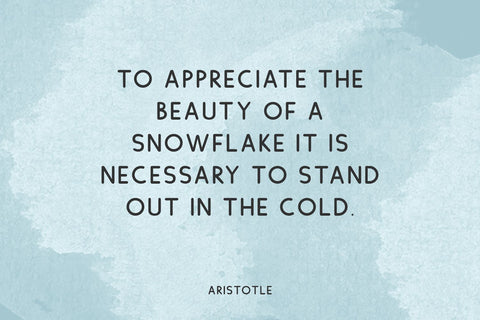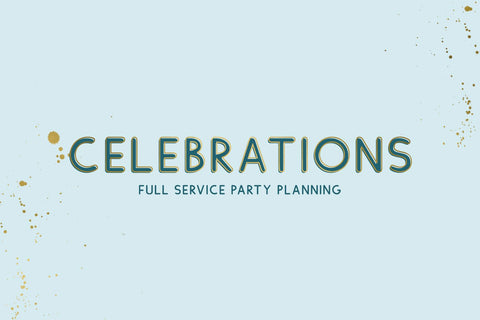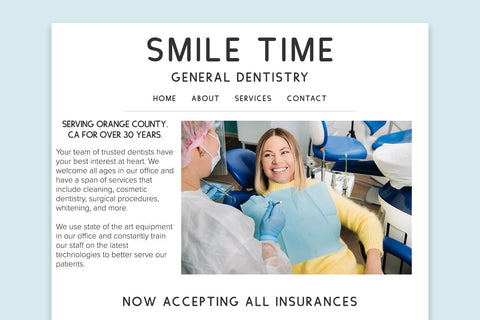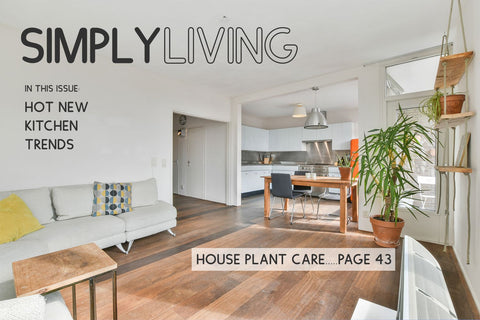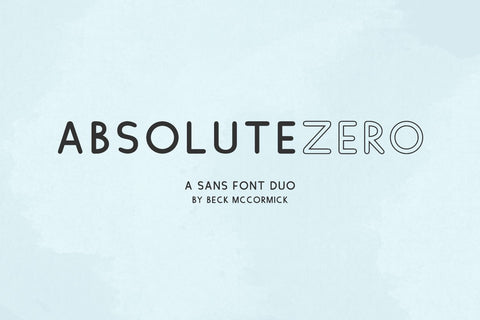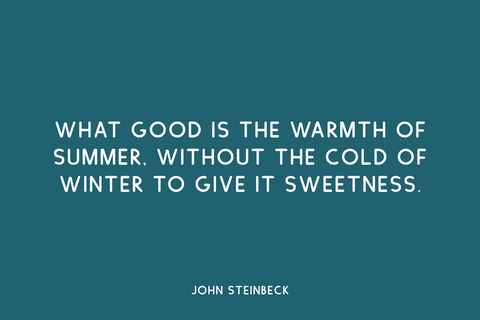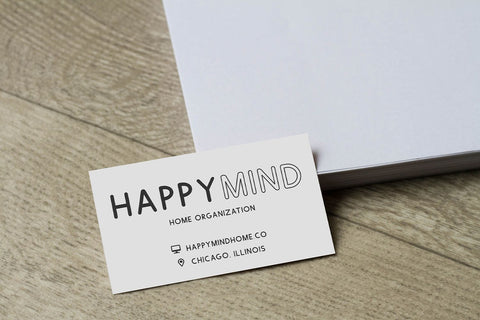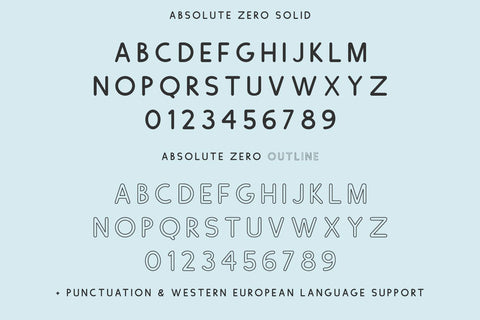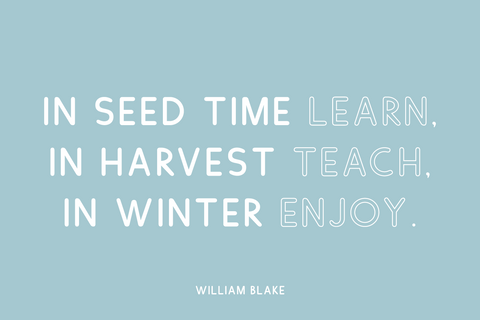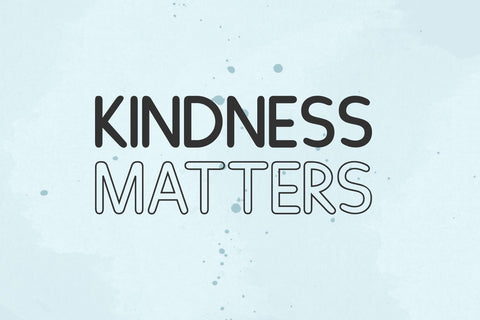
Absolute Zero Sans Font Duo
Meet Absolute Zero, an all-caps font duo that includes a regular, solid version and an outline version. Absolute Zero is modern & tidy. It looks great as stand-alone text, combined in a design, and as a layered design!
Absolute Zero is best for:
- logos + branding
- printed materials, both for attention grabbing headlines and easy to read blocks of content
- header elements that need handwritten touch
- quote graphics for social media like Facebook or Instagram
Absolute Zero includes:
- full uppercase characters for both caps & lowercase glyphs
- numbers + punctuation
- Western European Language Support